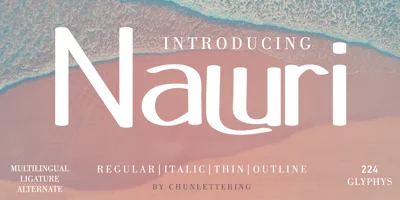
Naluri Font
Naluri Font is ideal for intuitive design projects, wellness coaching branding, mindfulness app interfaces, natural therapy practices, spiritual guidance materials, holistic healing centers, and authentic lifestyle publications.
What makes Naluri Font exciting is its instinctive flow and natural wisdom, featuring organic letterforms that capture the essence of human intuition while delivering harmonious readability and authentic spiritual connection.
The Naluri Font family includes Thin, Light, Regular, Medium, Bold, and Heavy weights, plus flowing variants and intuitive alternates that enhance the font's natural character and spiritual possibilities.
Naluri Font embodies the profound wisdom of human instinct and natural intuition through thoughtful typography design. This inspiring typeface connects with the deepest aspects of human awareness, creating a harmonious visual language that speaks to audiences seeking authentic guidance, spiritual growth, and meaningful connection with their inner wisdom. The font's intuitive character and natural appearance make it perfect for wellness practitioners, spiritual guides, and holistic brands that want to communicate authenticity, inner knowing, and the transformative power of trusting one's natural instincts.
Wellness professionals and spiritual organizations consistently choose Naluri Font for projects that require authentic spiritual credibility and intuitive visual appeal. The typeface's organic construction and flowing personality make it exceptionally effective for life coaches, spiritual teachers, and wellness practitioners where authentic guidance and natural wisdom are paramount. Each character has been designed with intuitive awareness to ensure harmonious appeal across all wellness applications and spiritual environments.
The spiritual advantages of Naluri Font extend beyond its intuitive appeal to include practical functionality for diverse wellness applications. The font maintains excellent readability during contemplative reading while delivering the distinctive character that creates meaningful connections and resonates with audiences seeking authentic spiritual guidance. Its comprehensive character set includes wellness symbols and spiritual elements that make it particularly suitable for holistic documentation and intuitive communication.
Life coaches, spiritual centers, and wellness organizations frequently incorporate Naluri Font into their brand identity systems because of its ability to instantly convey authentic wisdom and spiritual credibility. The typeface's intuitive aesthetic helps establish trust and emotional connection while appealing to clients who value inner guidance, spiritual authenticity, and the profound wisdom that comes from connecting with natural instincts and trusting their inner knowing.